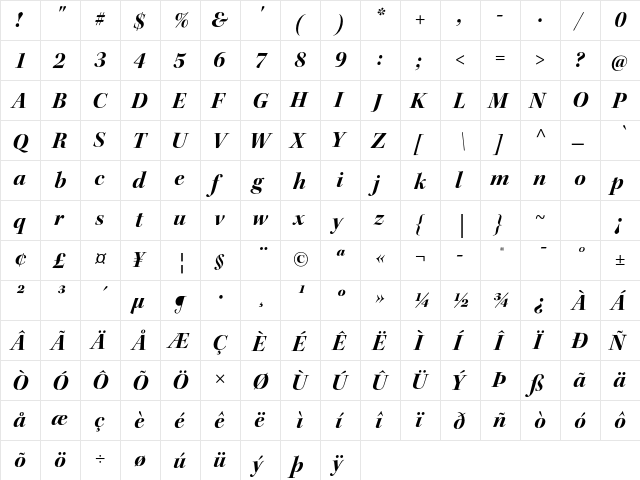
Kepler Std Bold Italic Display Font Preview
Kepler Std Bold Italic Display
Kepler Std Bold Italic Display Font Details
| Style | Bold Italic Display |
| Designer | Robert Slimbach |
Design Context for Kepler Std Typeface
Kepler Std is built around its visual character rather than neutral utility — its distinctive forms are designed to make an impression at display sizes. Its italic angle brings a sense of urgency and motion to the letterforms. Its bold stroke weight gives it real presence on the page.
Font Pairing: Pair with a clean neutral sans-serif for body copy to let Kepler Std's character lead without overwhelming the composition.
Pro Tip: Use Kepler Std exclusively at display sizes — it was designed to be seen, not read at length. Let a neutral companion handle body copy.